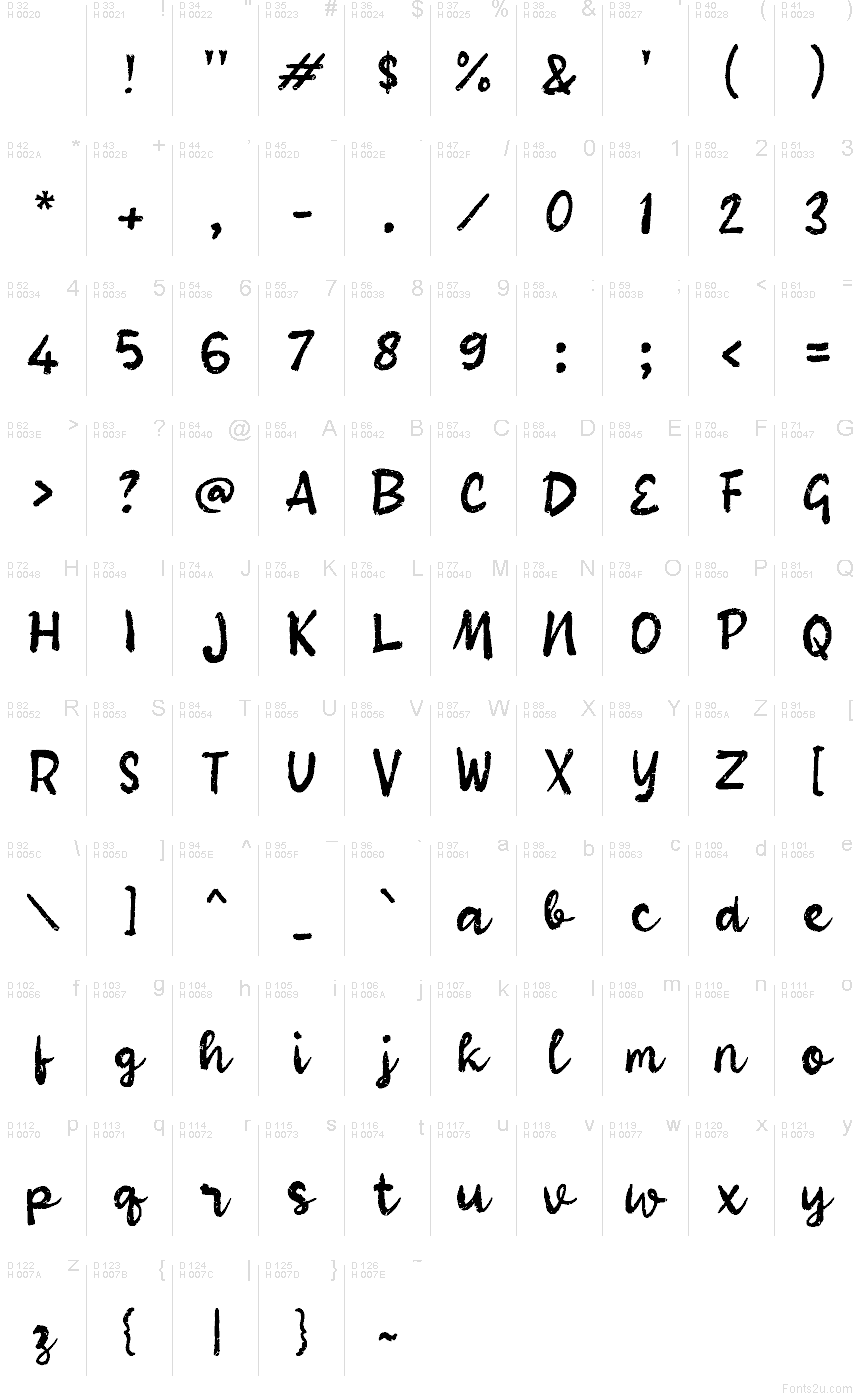
Rabajio Soul
Rabajio Soul font by wep is a free brush script typeface with a gritty, hand-painted texture that feels like fresh ink dragged across rough paper. The strokes are loose and bouncy, with a speckled grain that keeps every word feeling alive and imperfect in the best way. It reads like a bold signature—confident, messy, and full of personality—so even short phrases carry a lot of attitude.
Using Rabajio Soul, you can add a raw, handcrafted touch to posters, album art, social media graphics, T-shirt designs, and edgy branding or logos. This free font shines when set large, letting the inky texture show, and works beautifully paired with a clean geometric sans for body text or small details.